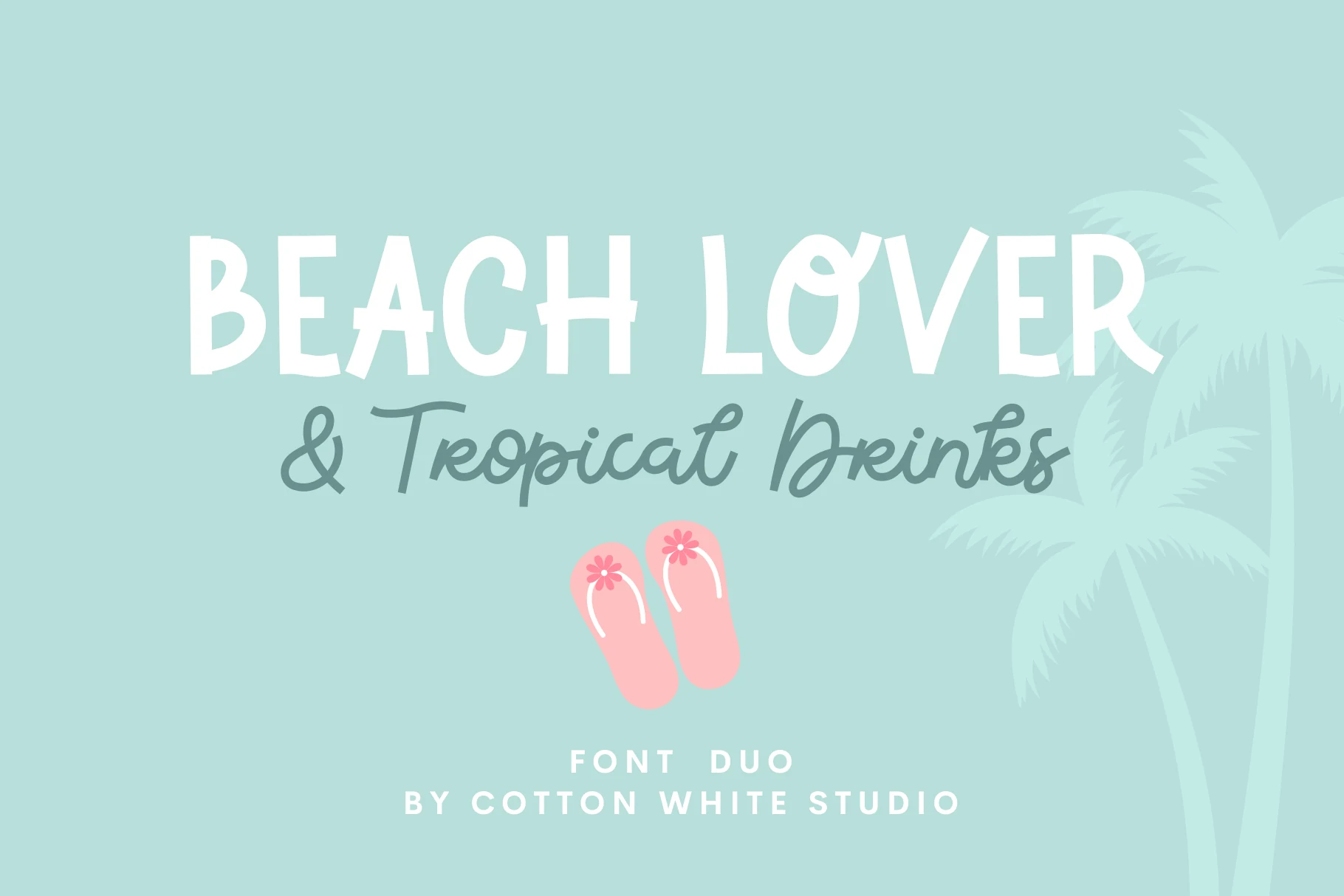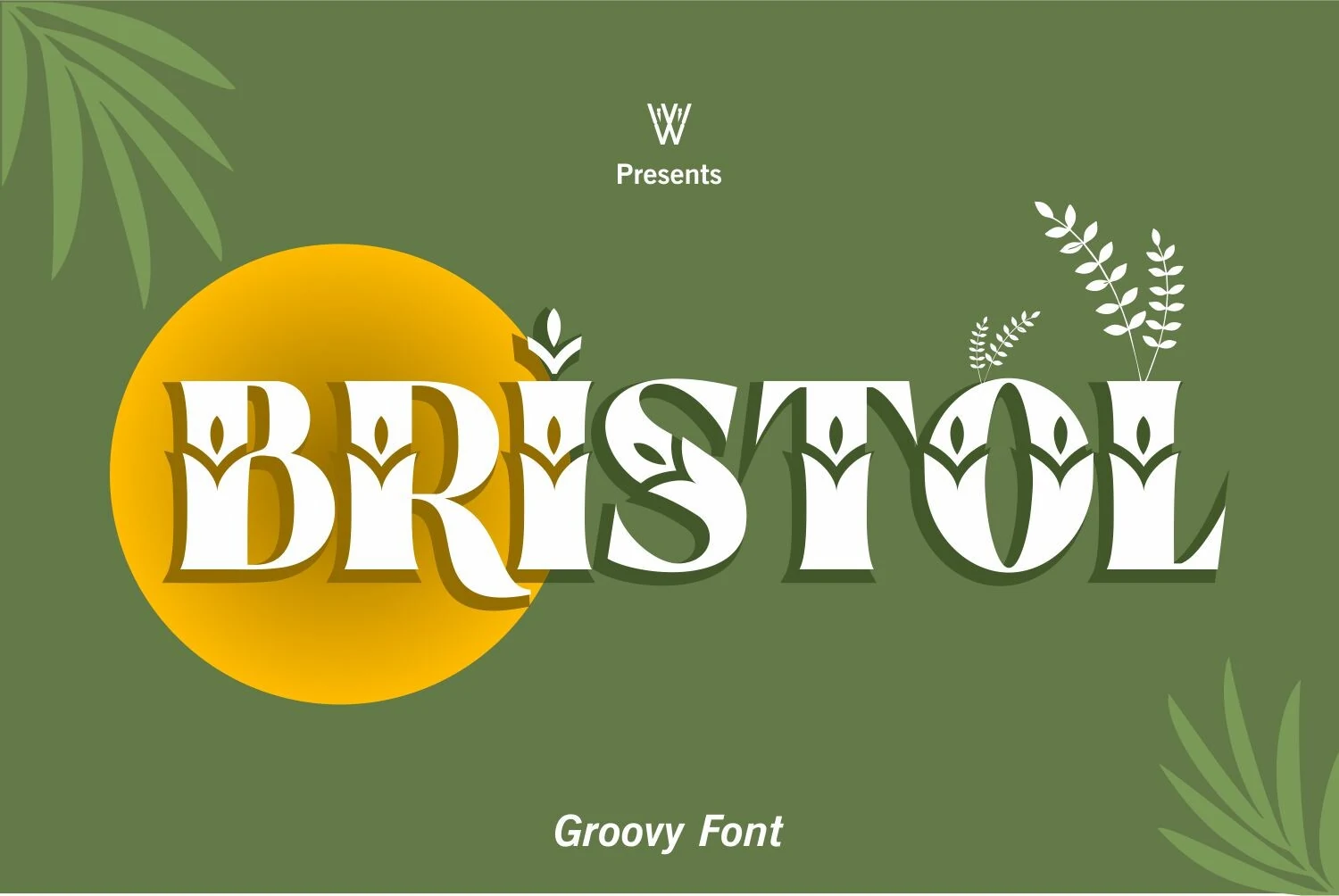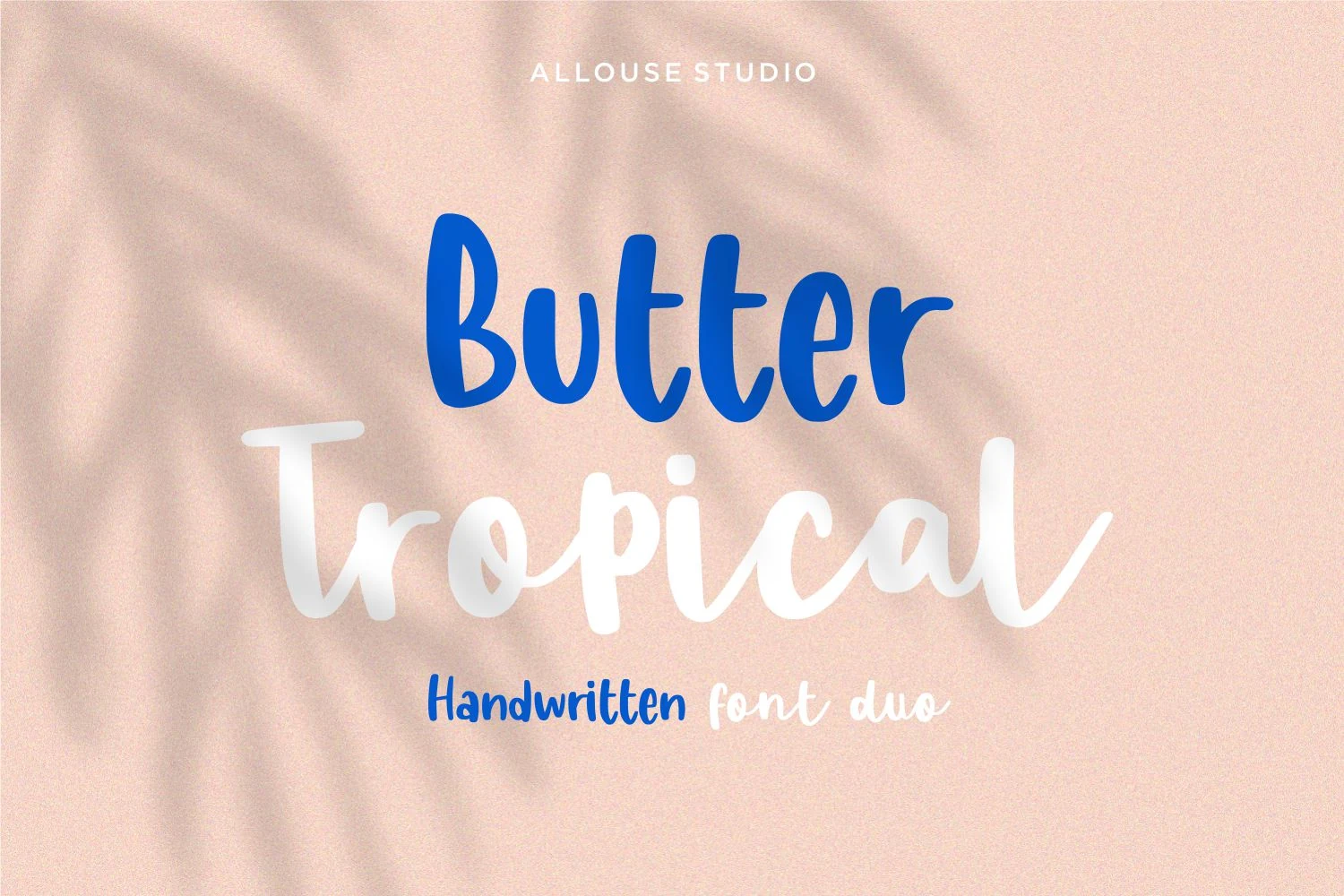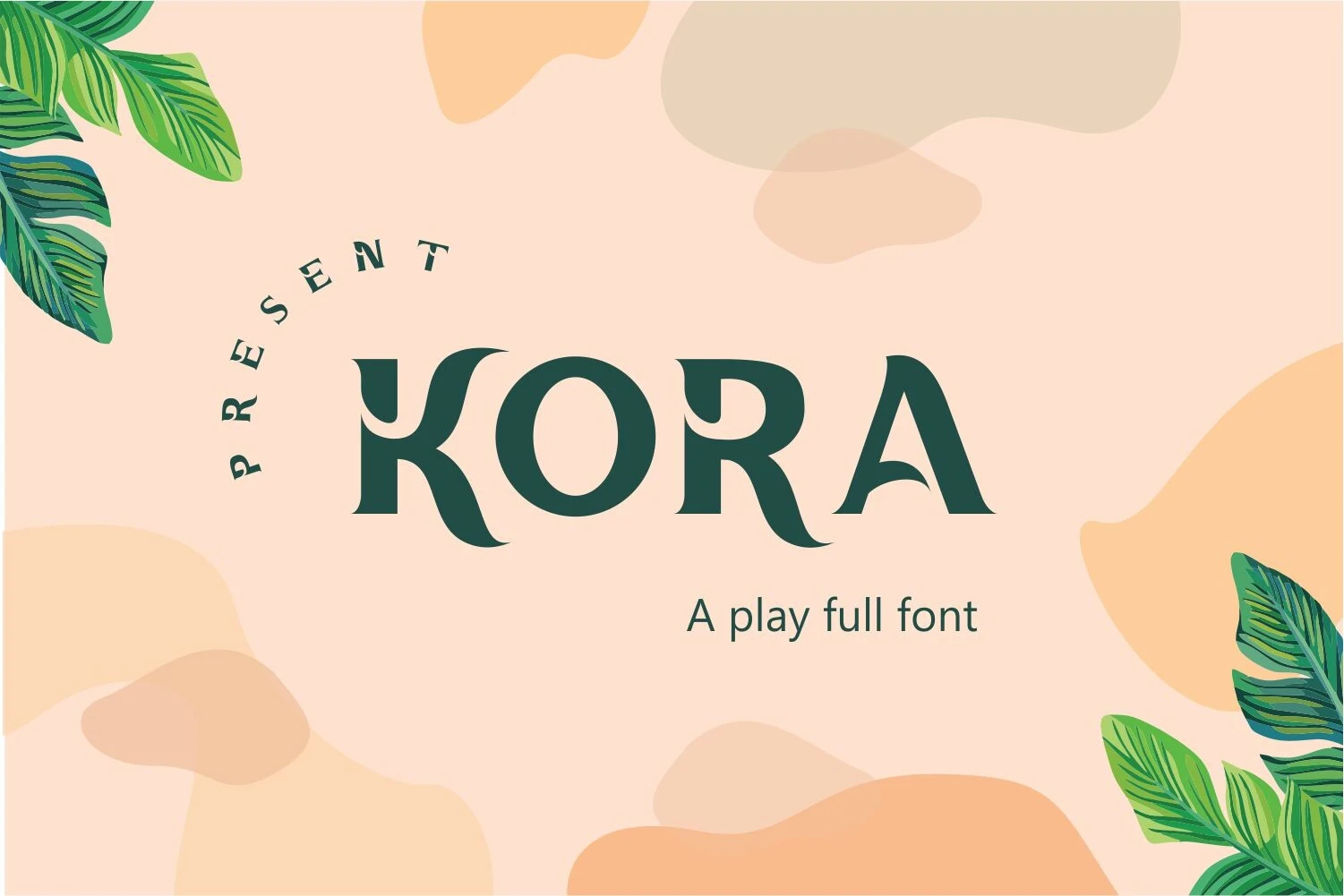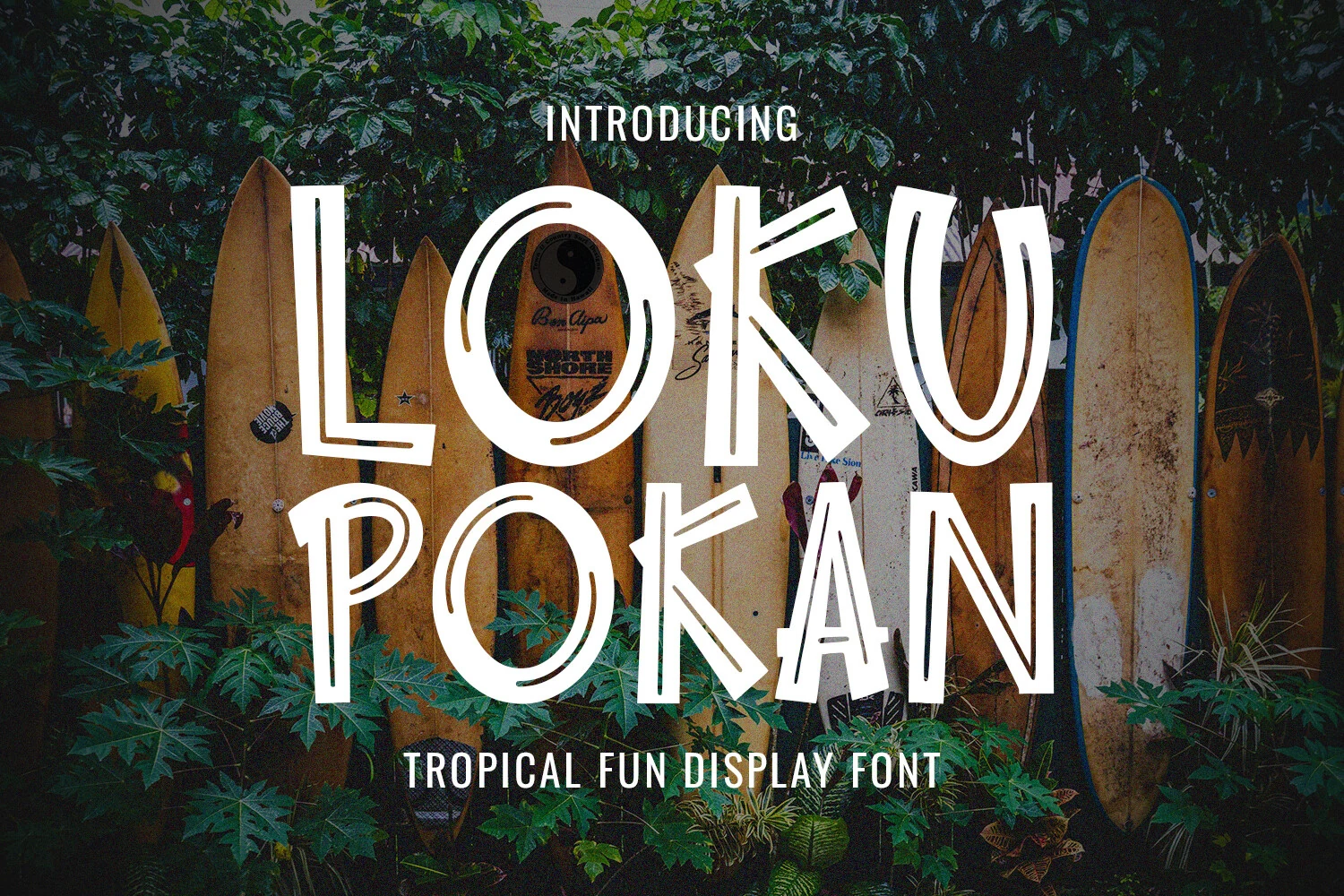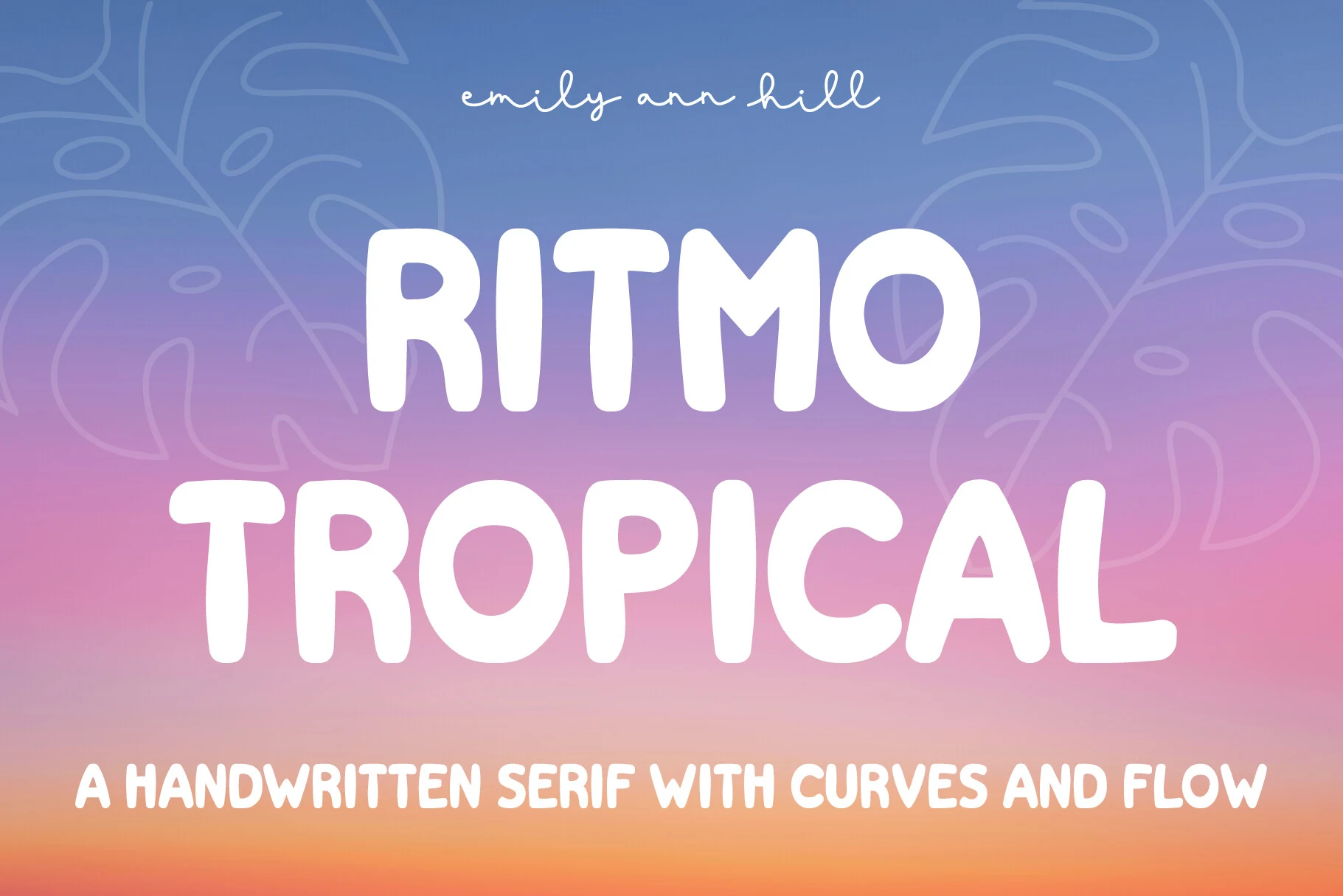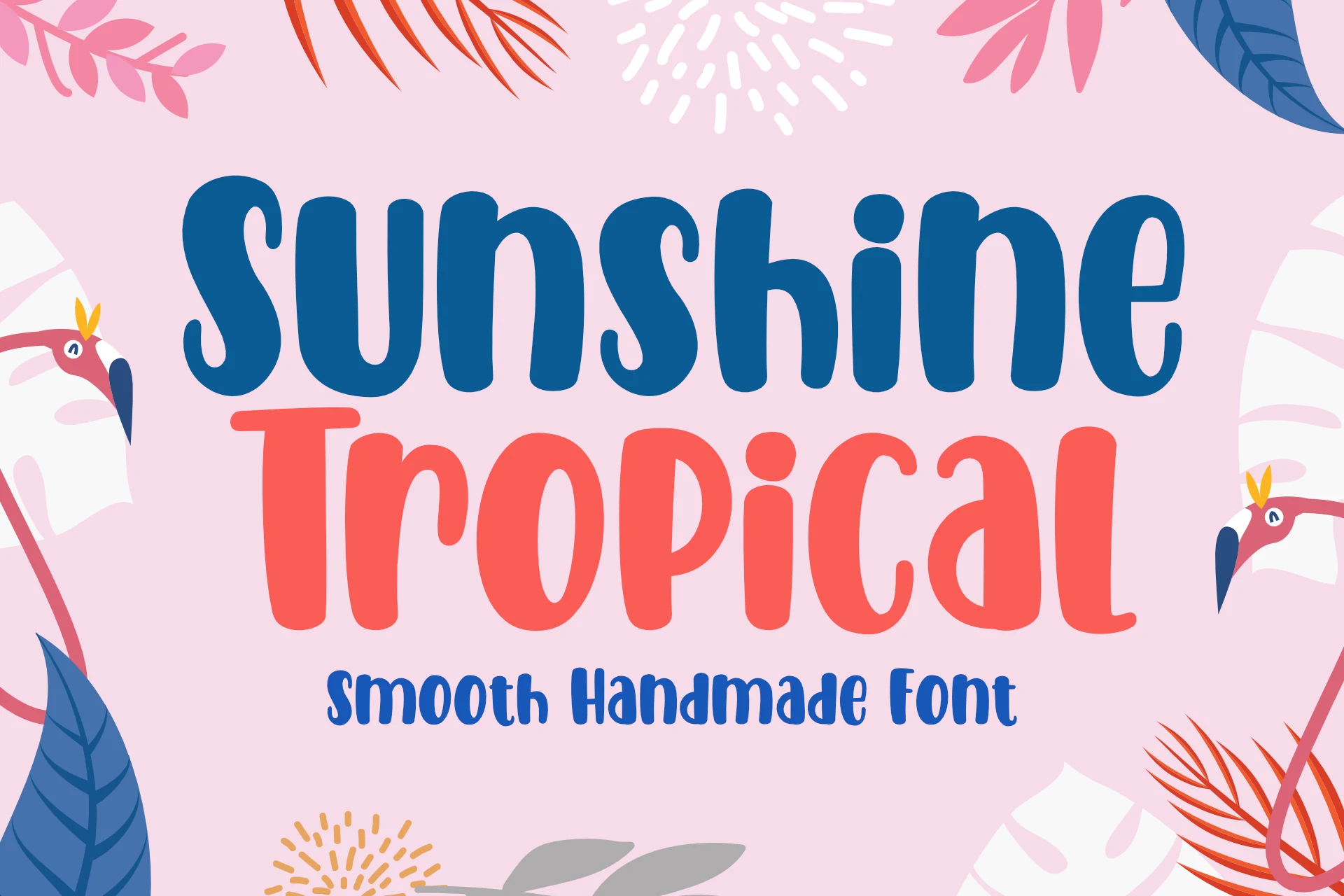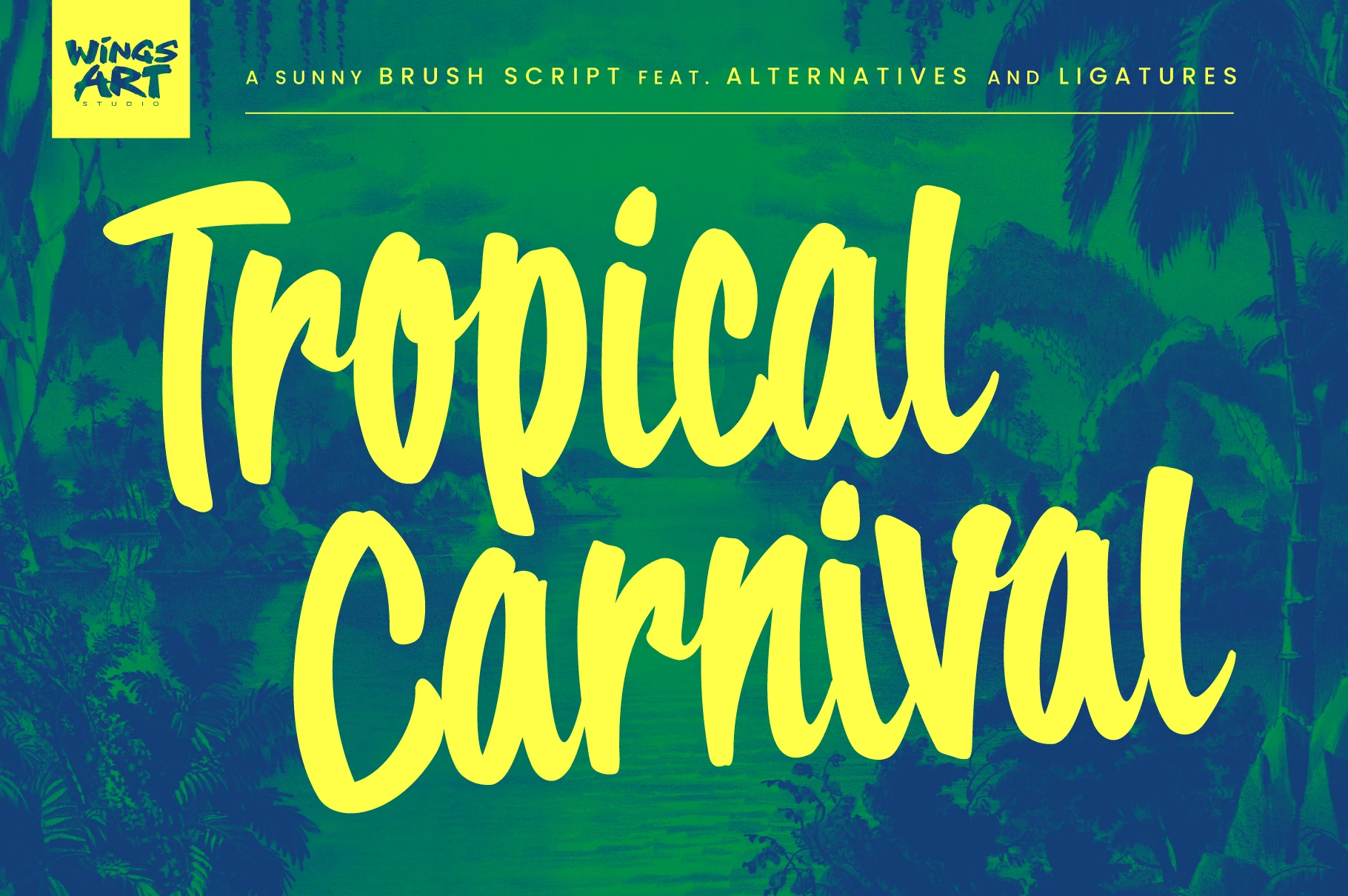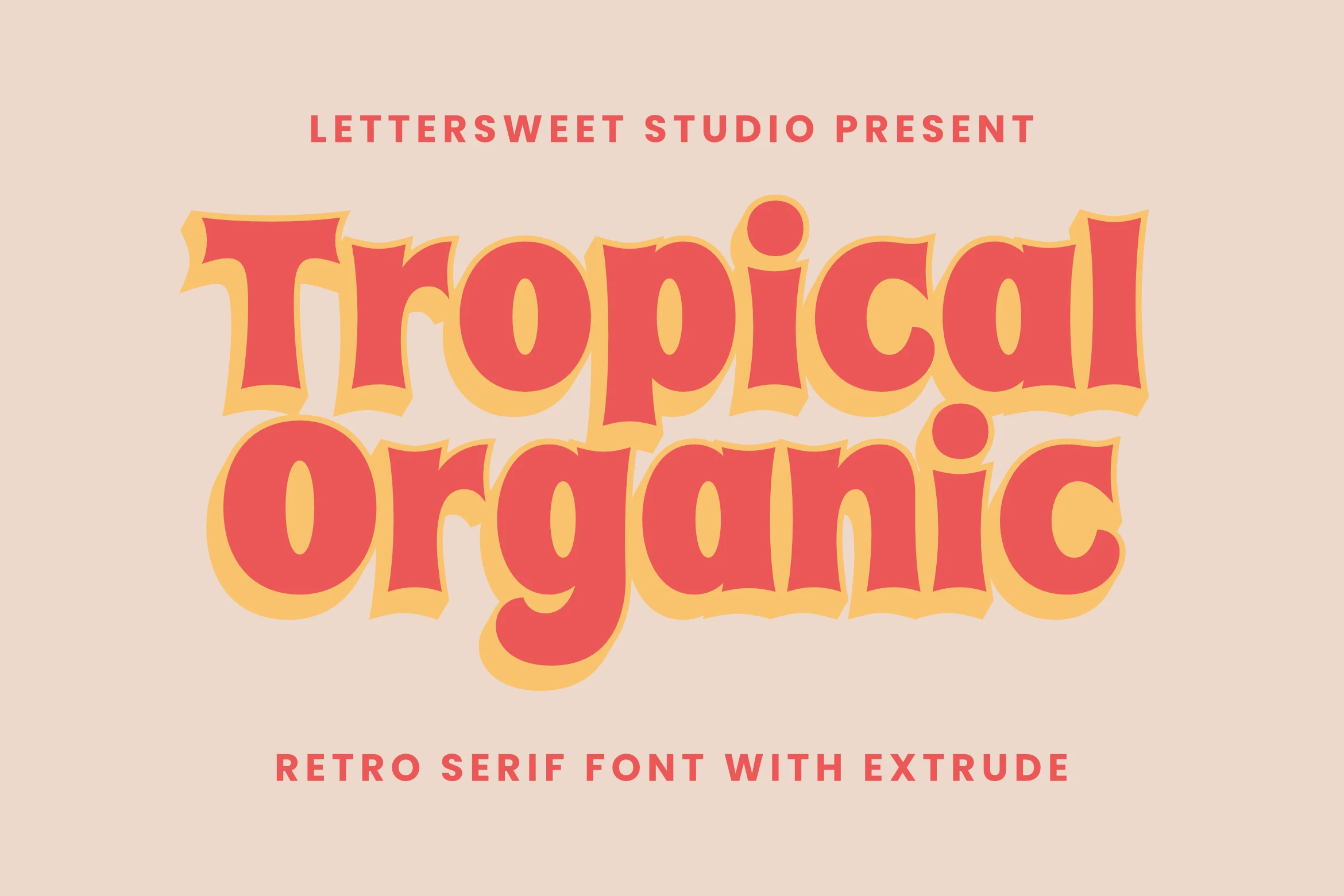
16 Best Tropical Fonts for Beach, Summer & Retro Designs
Explore 16 tropical fonts for beach posters, summer branding, stickers, invitations, packaging, T-shirts, and social graphics. The set covers retro display fonts, brush scripts, playful handwritten styles, and softer monoline options.
Sunshine Tropical Font
Sunshine Tropical Font uses thick rounded strokes, soft handmade curves, and slightly uneven proportions that keep the lettering casual without turning messy. The chunky forms give Tropical Fonts a friendly display voice, while the open counters and smooth terminals help the words stay readable at poster or product-label scale.
It works best when the type carries the layout rather than sits inside a crowded text system. Keep spacing fairly tight to preserve the bouncy rhythm, then use strong color contrast if it goes over illustrated or busy backgrounds.
Tropical Freezer Font
Tropical Freezer takes a light, airy approach with very tall letterforms, slim strokes, and rounded handwritten curves that feel casual rather than polished. In a sea of Tropical Fonts, it stands out by keeping the mood playful while staying clean enough for readable display work.
Because the letters are narrow and high, this font looks strongest in short titles, packaging callouts, or summery cover text where the vertical rhythm can breathe. A little extra line spacing helps the long strokes stay elegant, and pairing it with a simple solid subheading keeps the layout balanced.
Tropical Culture Font
Tropical Culture Font leans into a bold retro voice, with chunky strokes, flared curves, and slightly irregular contours that keep the lettering expressive instead of stiff. It gives Tropical Fonts a more nostalgic direction, and the wide silhouettes make each word feel graphic and memorable at a glance.
This is a display face that works best when you let the shapes carry the composition. Use it for short titles or statement text, keep tracking fairly snug, and pair it with a simpler secondary font so the dramatic curves stay in control.
Ritmo Tropical Font
Ritmo Tropical Font uses thick rounded strokes, soft corners, and squat handwritten shapes that give each word a warm, inflated rhythm. It brings a bubbly side to Tropical Fonts without losing clarity, since the counters stay open and the letter widths remain steady enough for quick-reading headlines.
The font suits packaging, pull quotes, and display copy where a friendly title needs weight rather than sharp polish. Keep the spacing moderate: too loose weakens the connected visual mass, while strong contrast against the background helps the rounded forms hold their shape.
Tropical Paradise Font
Tropical Paradise Font has a light monoline structure, tall proportions, and rounded handwritten curves that give it a calm, modern rhythm. The small heart accents add charm without distracting from the clean letterforms, which helps Tropical Fonts feel polished and airy instead of overly decorative.
It works best in headings, quote graphics, and branding layouts where the long vertical strokes have room to breathe. Keep the spacing slightly open and pair it with a simpler supporting font to preserve its delicate texture and readable flow at display sizes.
Tropical Organic Font
Tropical Organic Font has a chunky retro serif structure with rounded bowls, flared edges, and slightly wavy contours that keep it feeling hand-drawn rather than rigid. The letterforms have real presence, and the bold silhouette gives Tropical Fonts a warmer, groovier direction with clear vintage energy.
The extrude effect adds depth without making the type hard to read, so it works especially well for short branding statements, poster titles, and punchy packaging. Let it lead the hierarchy, keep supporting text simple, and use solid spacing so the curved shapes and shadowed edges stay crisp.
Beach Lover Tropical Drinks Duo Font
Beach Lover Tropical Drinks Duo Font pairs two distinct looks: chunky all-caps lettering with slightly uneven handmade edges, and a loose script that feels relaxed and breezy. That contrast gives Tropical Fonts a beachy, lifestyle mood, with the bold style grabbing attention while the cursive line keeps the composition light.
This collection works best for designs that need a clear tropical mood without relying only on palm leaves or beach imagery. Choose chunky retro fonts like Tropical Culture, Tropical Organic, Tropical Punch, or Tropical Sunshine when the headline needs weight and instant visibility. Use brush and handwritten styles such as Tropical Carnival, Butter Tropical, or Tropical Paradise for softer quotes, invitations, and casual social posts. For branding and packaging with a more polished edge, Kora and Bristol are stronger choices. The safest approach is simple: use the loud display fonts for posters and merch, and the lighter handwritten fonts for relaxed, friendly layouts.